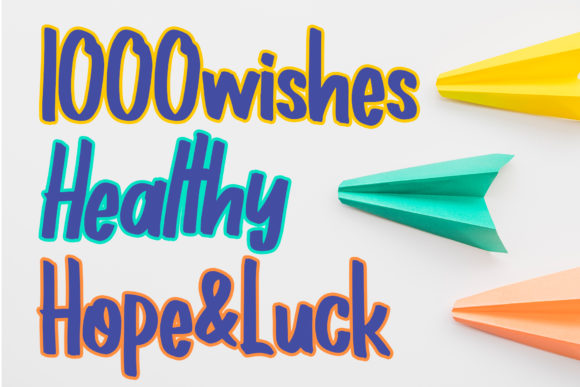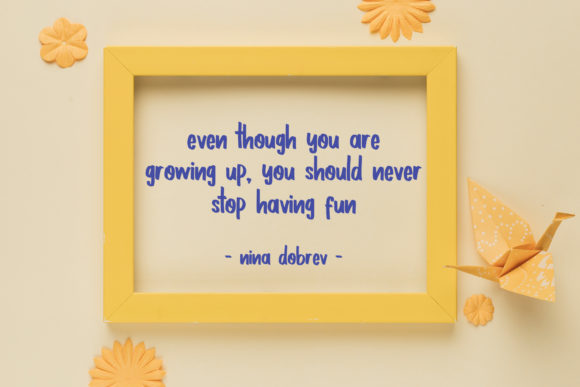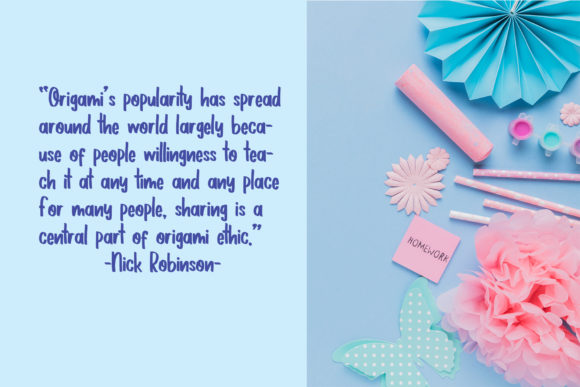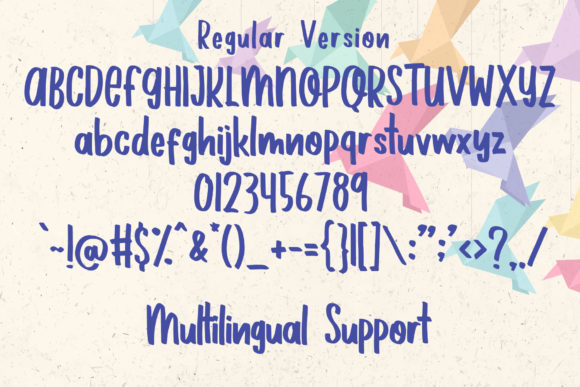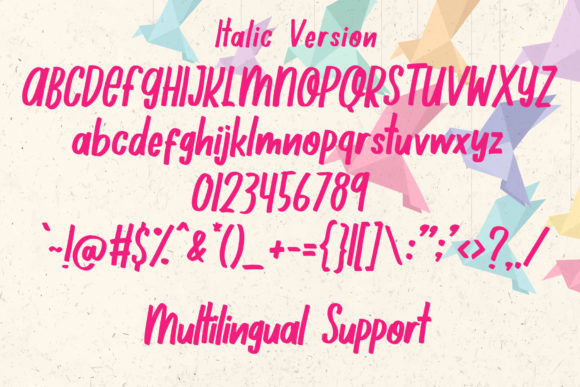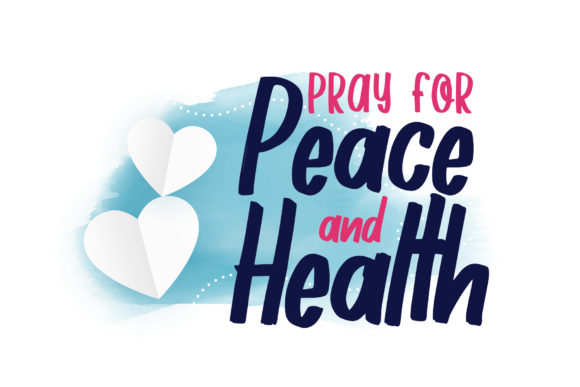
Introducing 1000 Wishes Origami Font: A Casual Handwritten Delight
Are you on the hunt for a unique and creative font to elevate your design projects? Look no further than the 1000 Wishes Origami Font! This casual handwritten font is a game-changer, perfect for designers and crafters seeking to add a personal touch to their work. In this article, we’ll dive into the world of 1000 Wishes Origami Font, exploring its features, benefits, and uses.
A Versatile and Eye-Catching Font
1000 Wishes Origami is a casual handwritten font that boasts a distinctive, one-of-a-kind charm. Its unique character makes it an excellent choice for a wide range of design projects, from creative crafts to digital marketing materials. Whether you’re working on a busy background or a standalone headline, this font is sure to shine.
Key Features of 1000 Wishes Origami Font
- Casual Handwritten Style: 1000 Wishes Origami Font features a relaxed, handwritten aesthetic that’s perfect for creating a friendly and approachable atmosphere in your designs.
- High Versatility: This font is incredibly versatile, making it suitable for use in various contexts, from digital platforms to print materials.
- Easy to Read: Despite its casual nature, 1000 Wishes Origami Font remains highly legible, ensuring that your message is conveyed clearly and effectively.
- Unique Character: The font’s distinctive character helps it stand out from more traditional fonts, making it an excellent choice for designers seeking to create a lasting impression.
So, what makes 1000 Wishes Origami Font an attractive option for designers and crafters? Here are just a few benefits:
- Time-Saving: With 1000 Wishes Origami Font, you can quickly create stunning designs without spending hours crafting custom lettering.
- Consistency: Using a consistent font throughout your design project helps to create a cohesive look and feel, which is easily achievable with 1000 Wishes Origami Font.
- Increased Creativity: The font’s unique character can inspire creativity and help you approach your design projects from a fresh perspective.
- Cross-Platform Compatibility: 1000 Wishes Origami Font is compatible with various digital platforms and devices, ensuring that your designs look great everywhere.
Using 1000 Wishes Origami Font in Your Designs
Now that we’ve explored the features and benefits of 1000 Wishes Origami Font, let’s discuss some practical applications:
- Digital Marketing Materials: Use 1000 Wishes Origami Font to create eye-catching social media graphics, email headers, and blog posts that capture your audience’s attention.
- Crafting and Scrapbooking: Add a personal touch to your crafts and scrapbooking projects with 1000 Wishes Origami Font, perfect for journaling, titles, and captions.
- Branding and Packaging: Establish a unique brand identity with 1000 Wishes Origami Font, ideal for logos, labels, and packaging designs.
- Web Design: Enhance your website’s aesthetic with 1000 Wishes Origami Font, suitable for headings, titles, and other design elements.
In conclusion, 1000 Wishes Origami Font is an exceptional choice for designers and crafters seeking a casual handwritten font with a unique character. Its versatility, readability, and eye-catching charm make it perfect for a wide range of design projects. By incorporating 1000 Wishes Origami Font into your workflow, you’ll be able to create stunning designs that capture your audience’s attention and leave a lasting impression.